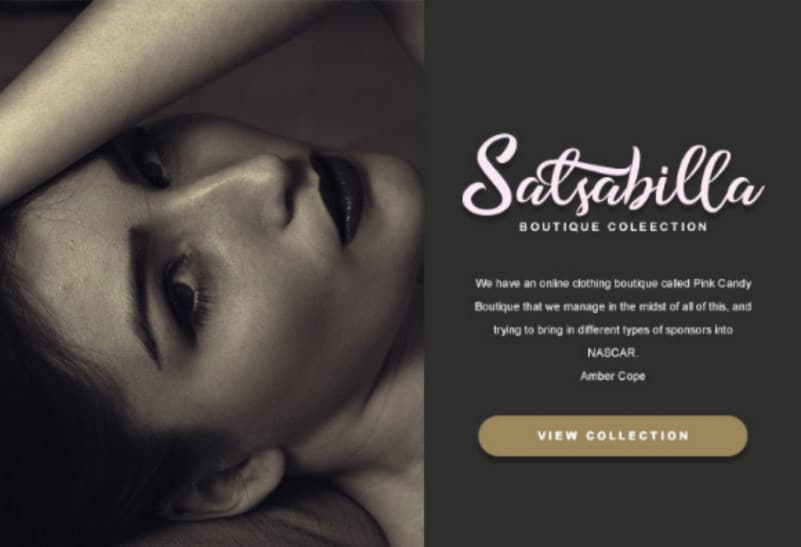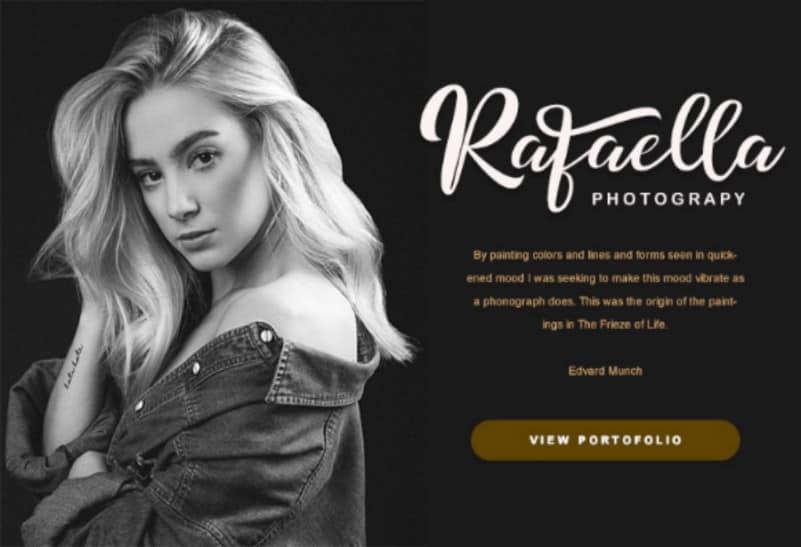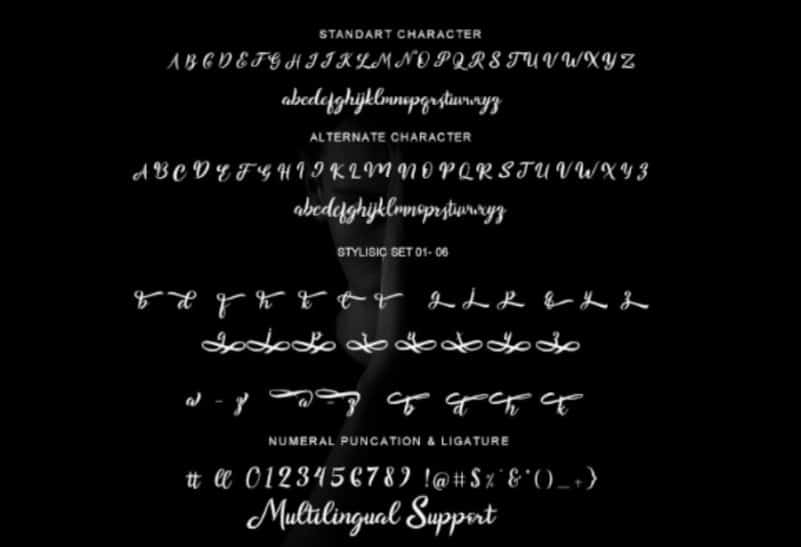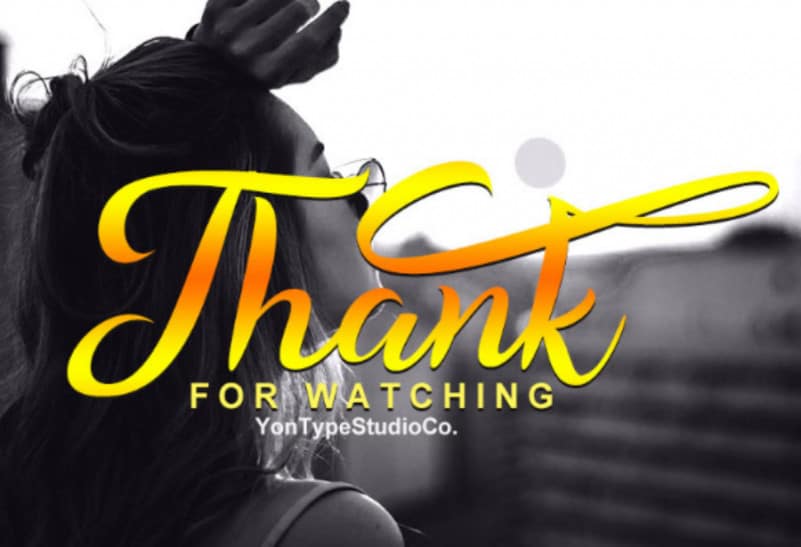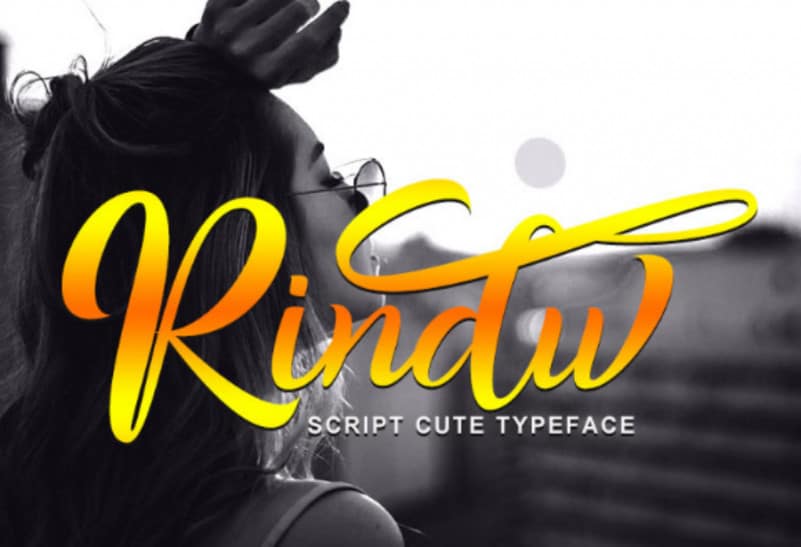
Rindu Calligraphy Typeface
Rindu Calligraphy Typeface with a Unique style, this font will perfect for many different projects ex: quotes, logo, blog header, poster, banding, fashion, apparel, letter, invitation, stationery, etc…